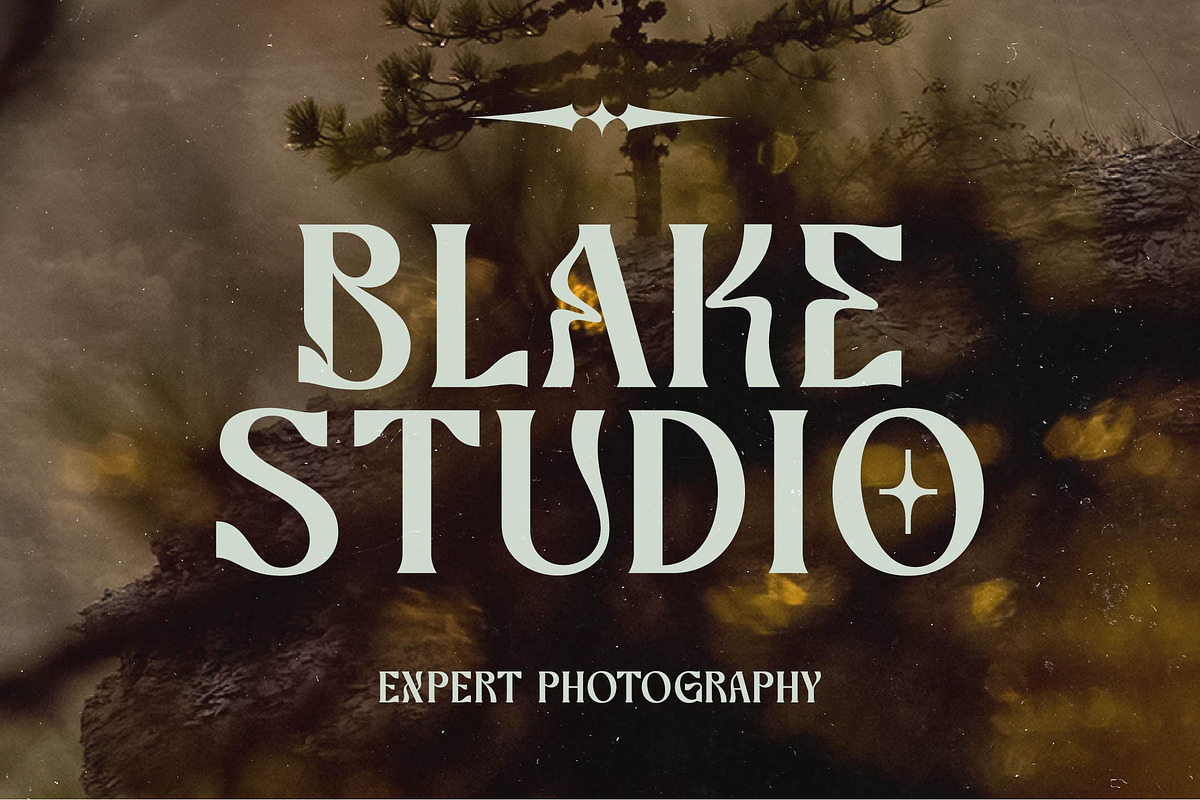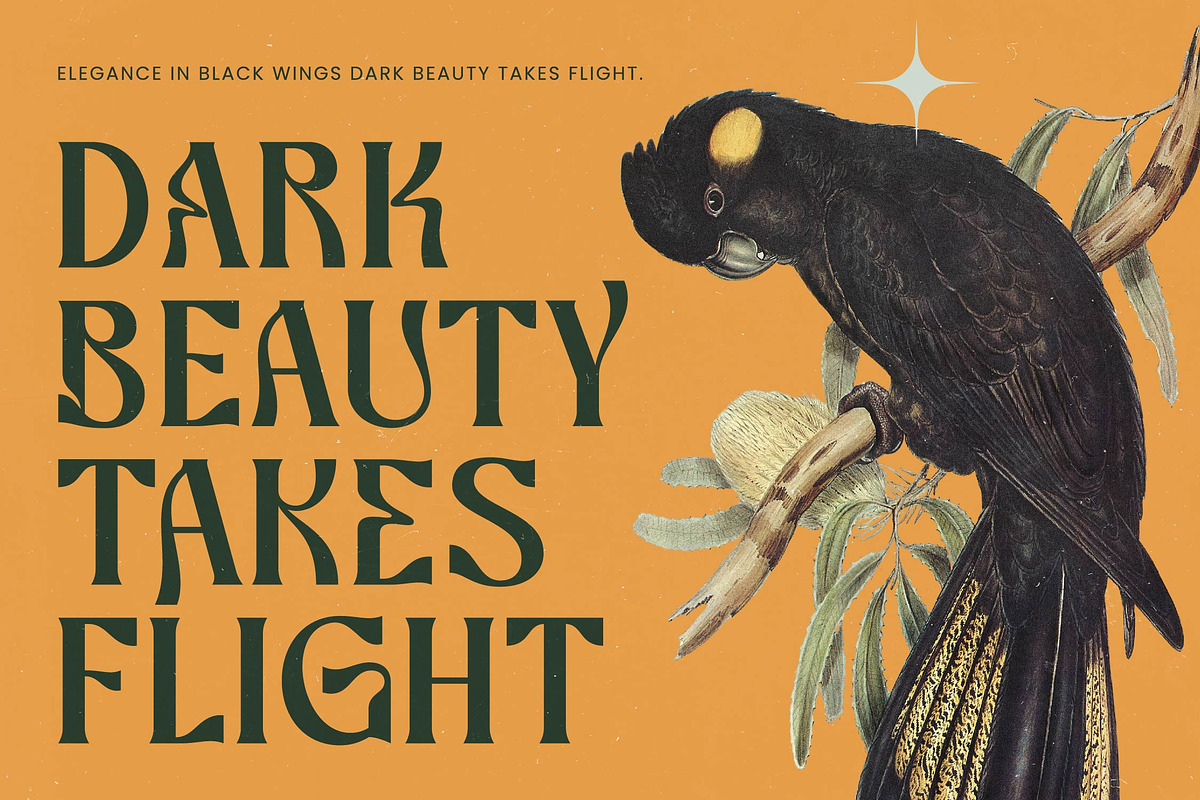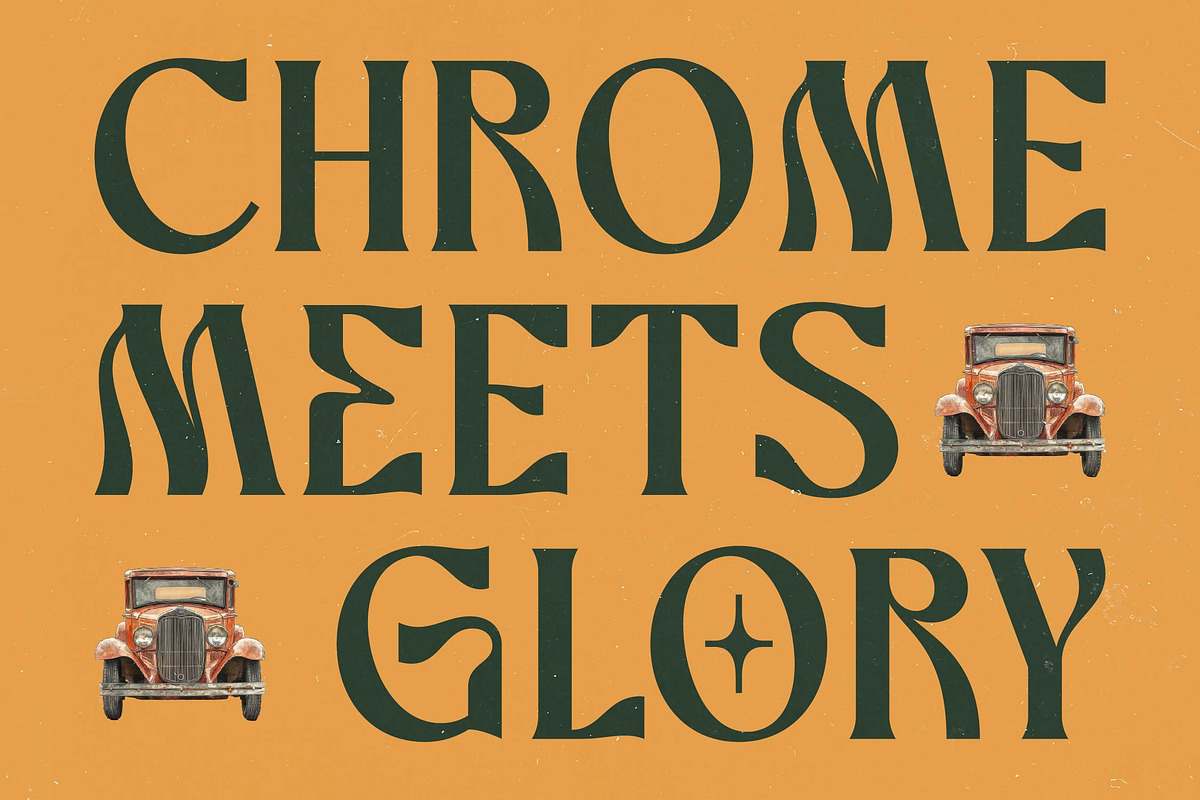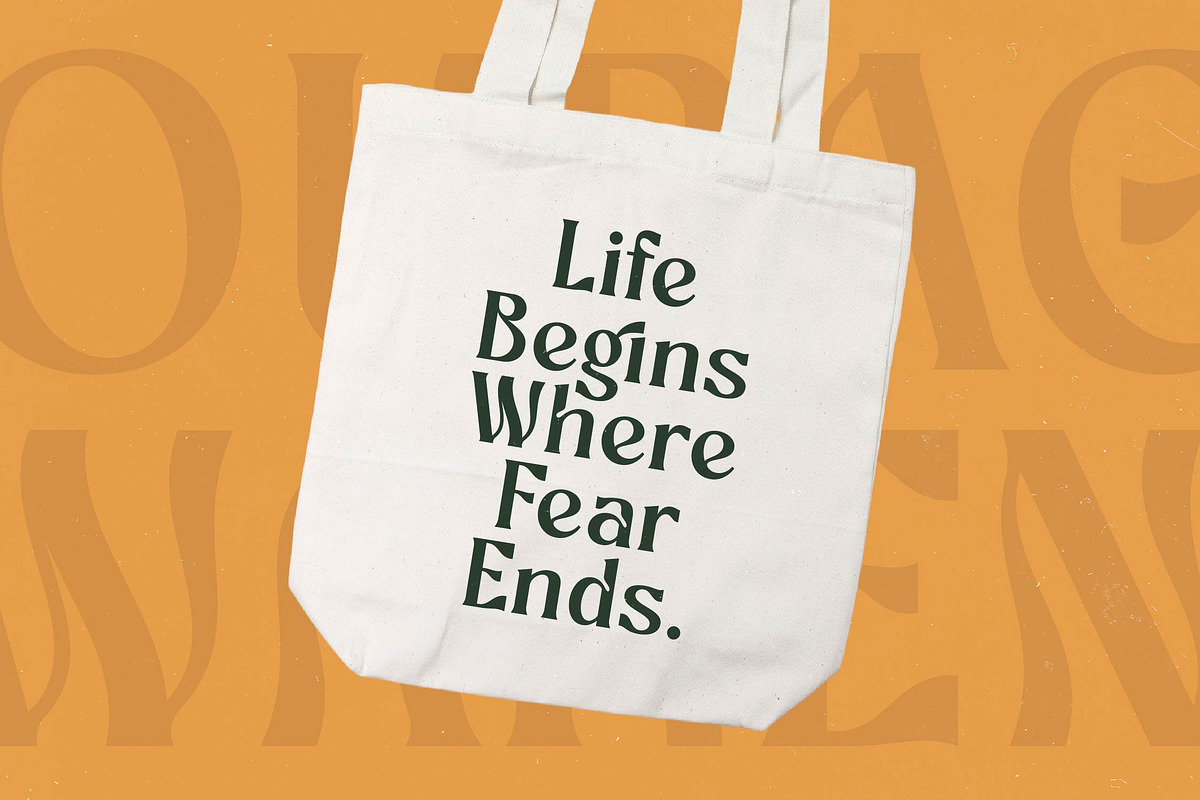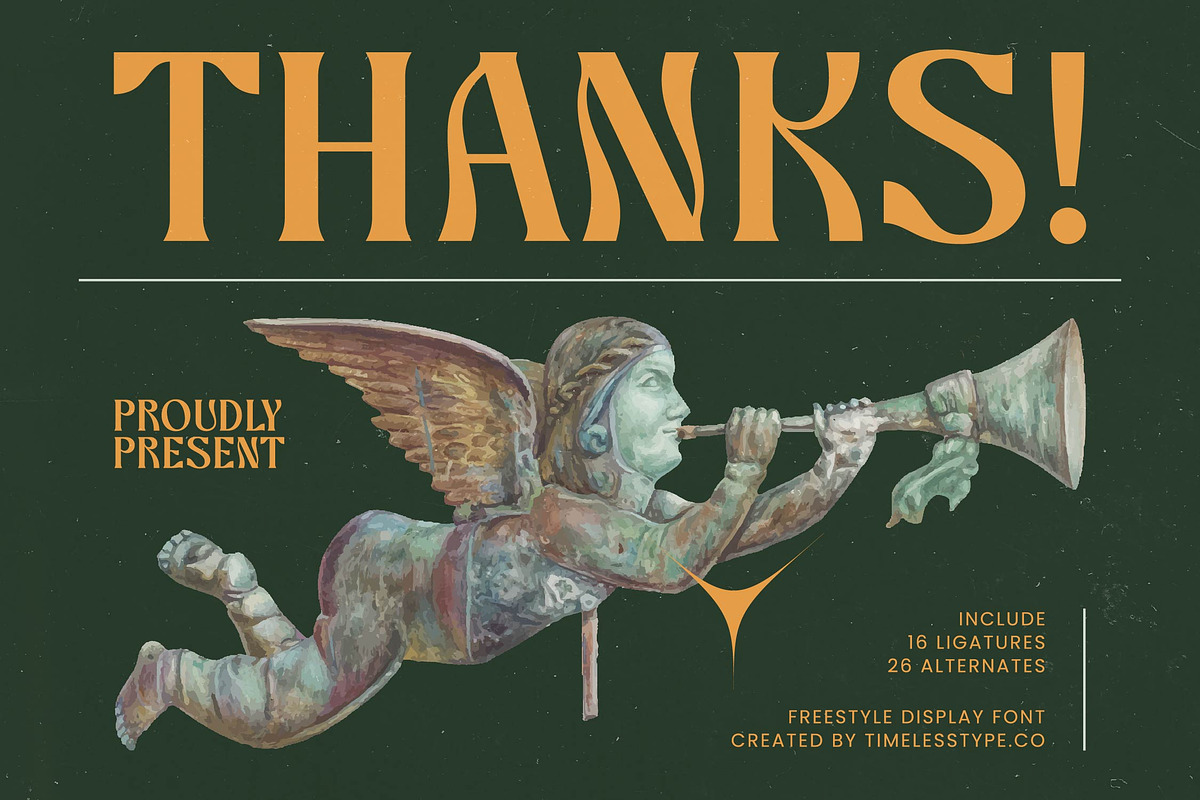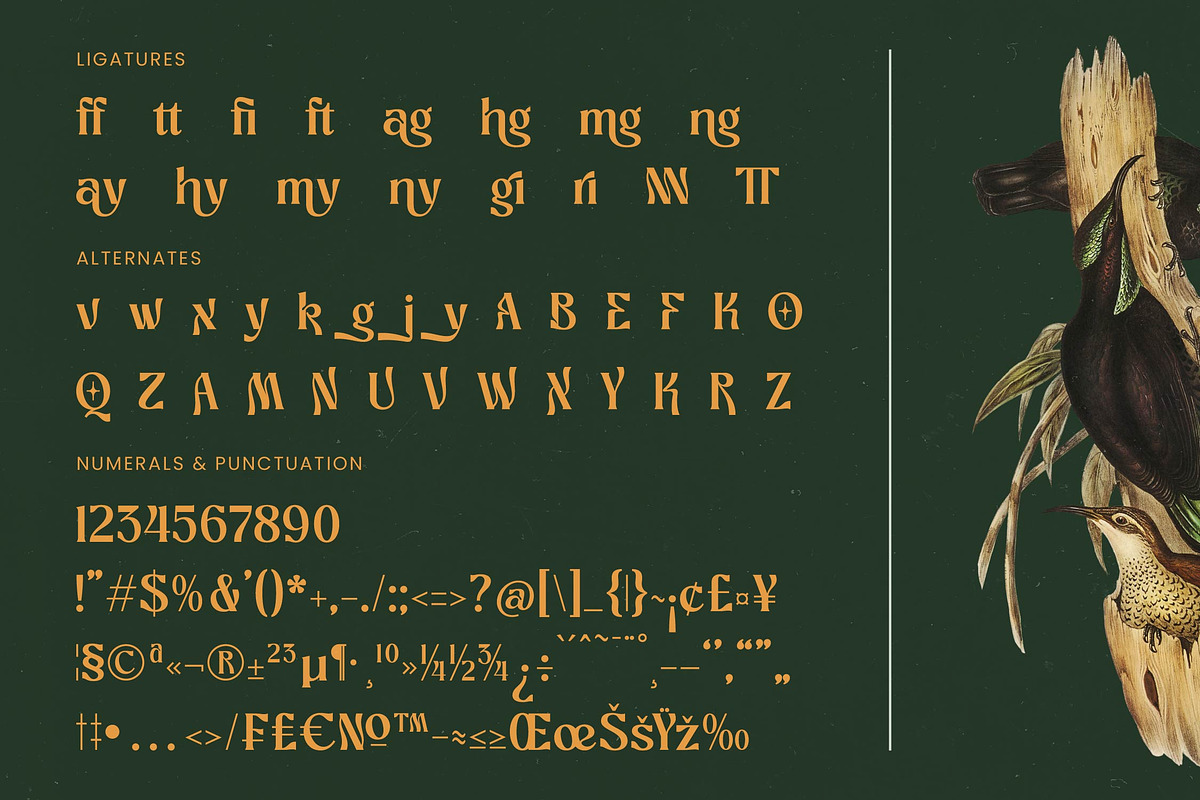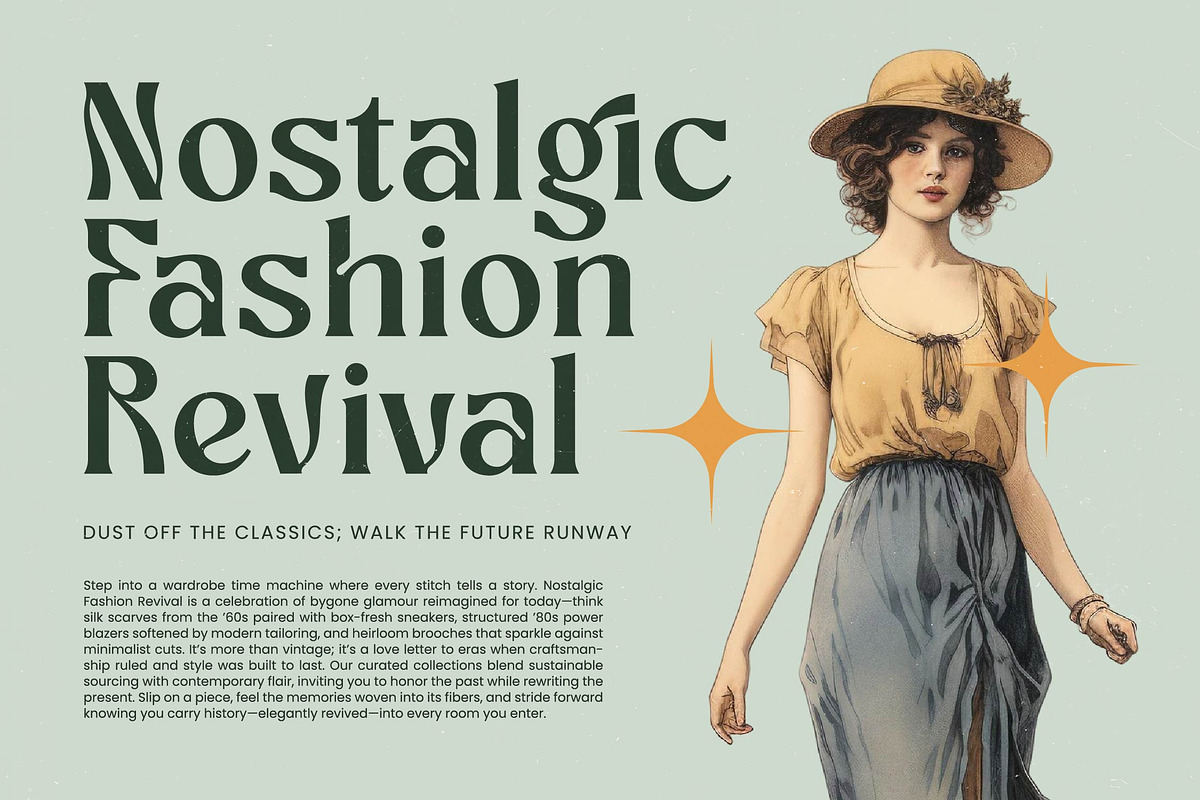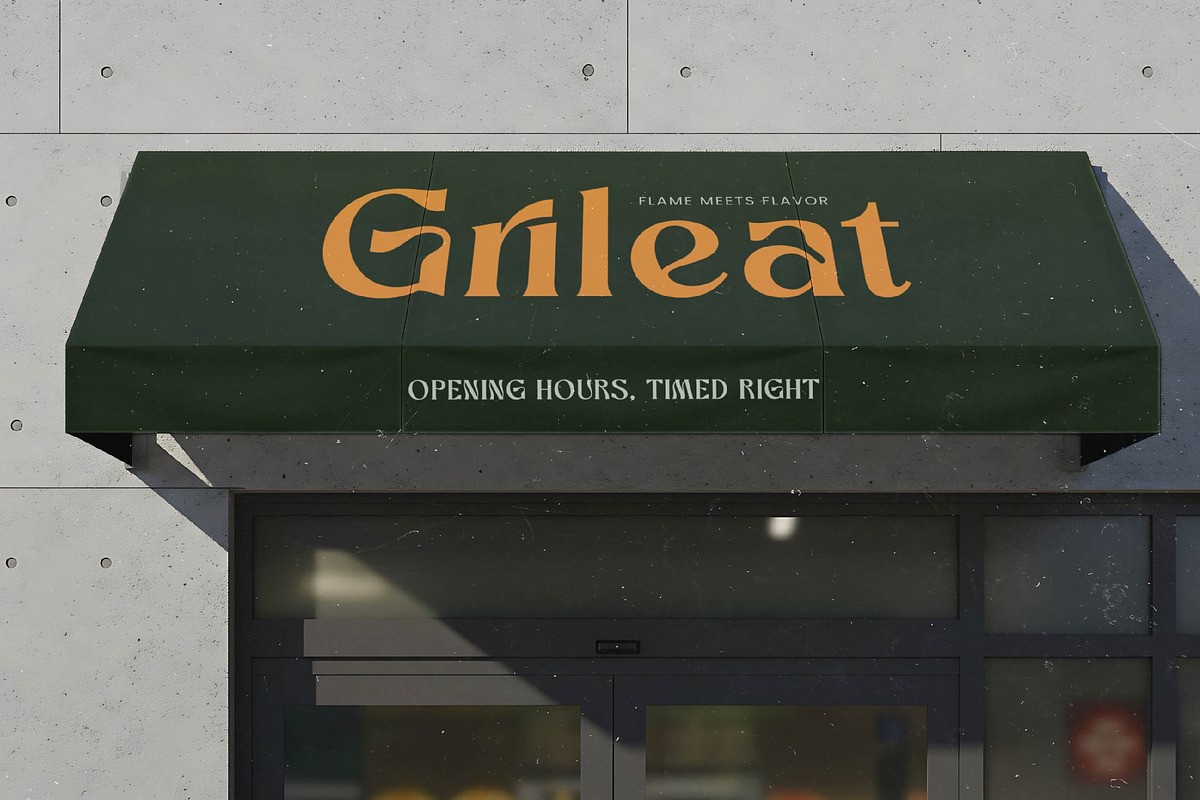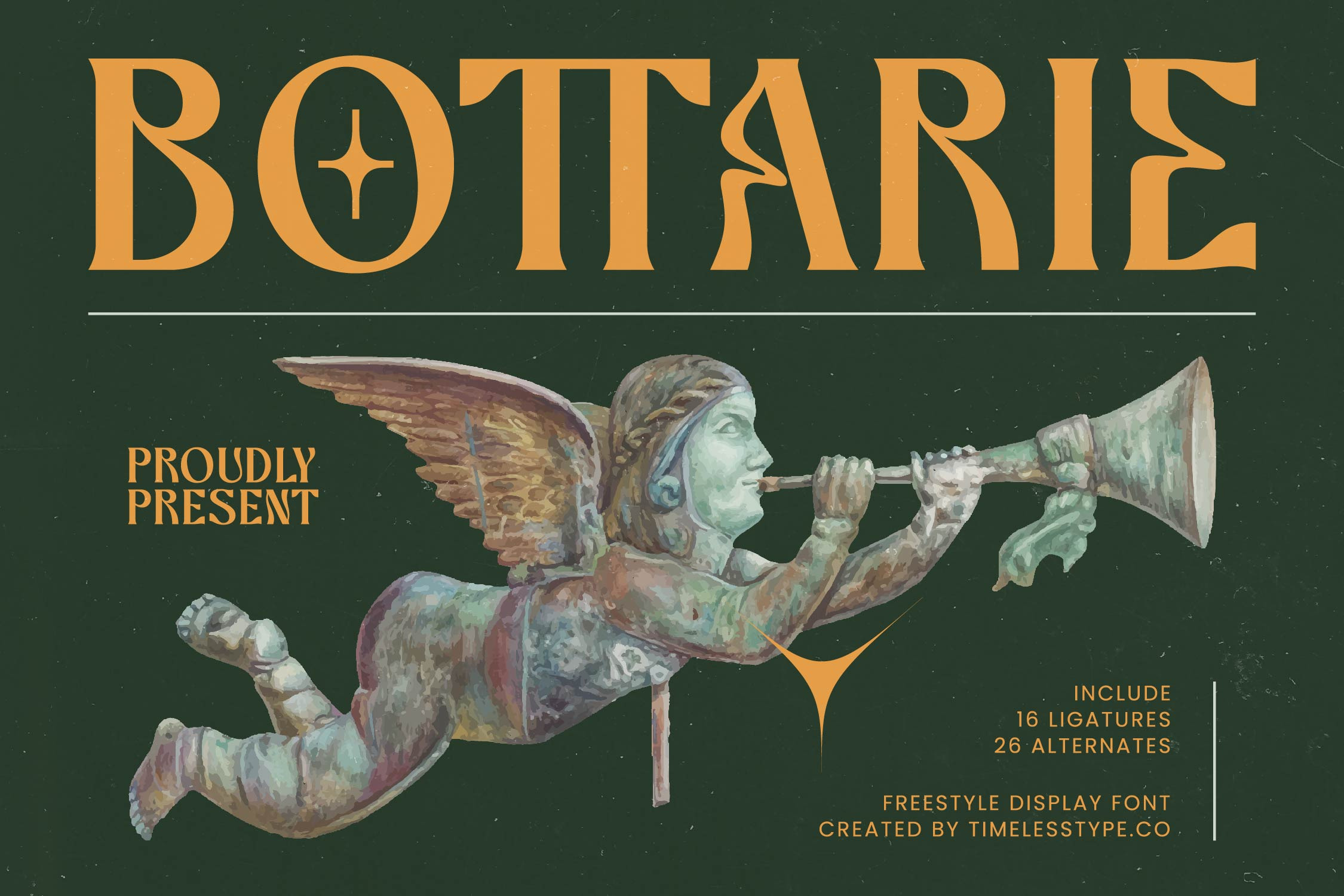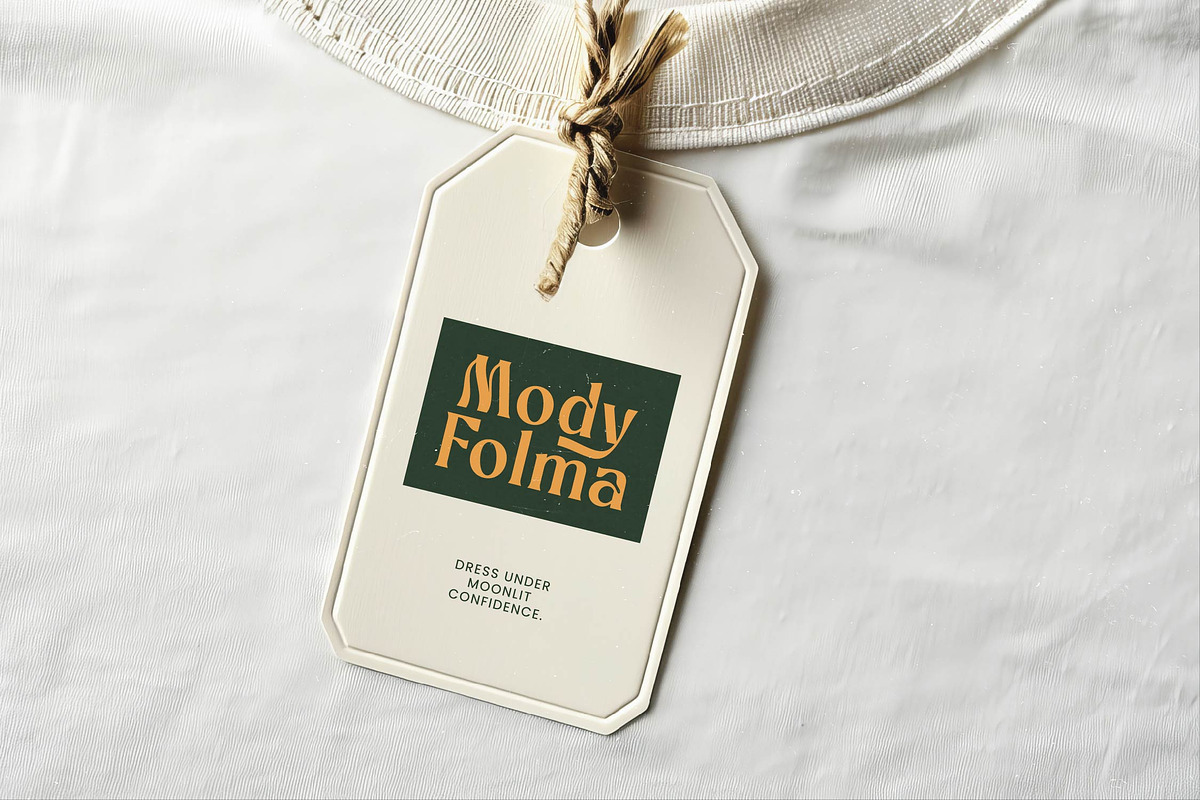
Bottarie Freestyle Display Font
Embrace the ethereal elegance of Bottarie Freestyle, a typeface that dances between classic sophistication and avant-garde artistry. This font is a true masterpiece of form, designed to elevate your creative projects into the realm of high-end editorial excellence.
Inspired by the fluid motions of vintage sculpture and the ornate details of classical art, this typeface captures a mystical atmosphere. It blends the weight of tradition with a contemporary "freestyle" spirit that defies conventional grid systems for a truly unique visual signature.
With its striking personality, this modern serif display delivers an undeniable luxury typography experience for any professional designer. The high-contrast serif strokes provide a sharp editorial font look that ensures maximum branding impact across both digital and print media.
Staying ahead of the current modern serif trend, this typeface meets the growing demand for editorial display fonts that feel personal and handcrafted. It is the perfect choice for creators seeking character-driven typography that tells a unique story in a crowded marketplace.
Perfectly suited for high-end logo design and comprehensive branding systems, it also excels in the world of editorial layouts. Whether it is for luxury packaging, a bespoke wedding invitation, or a cutting-edge fashion lookbook, this font commands attention.
This professional package includes a rich set of 16 ligatures and 26 alternates to give your text a custom-lettered feel. It also features comprehensive multilingual support and international characters to ensure your design message resonates globally.